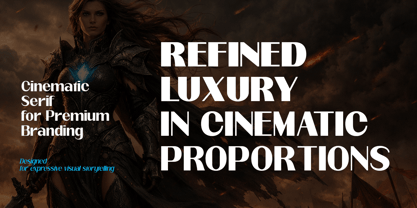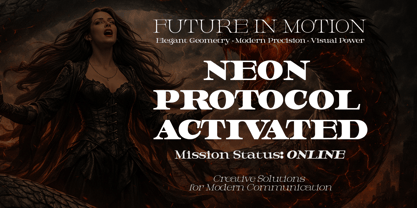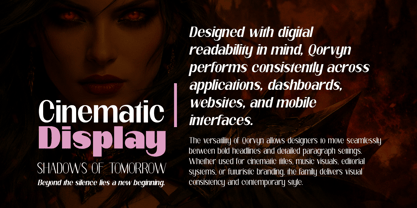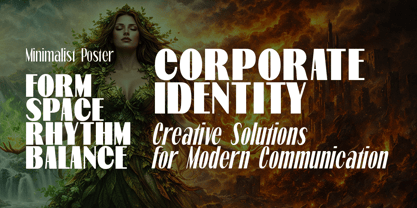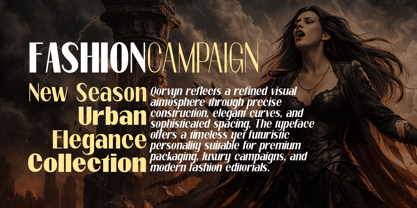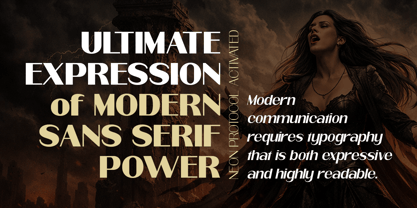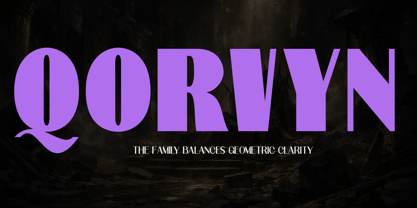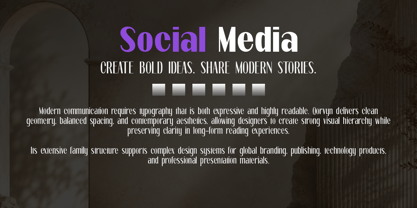
Qorvyn
The Qorvyn Font Family was designed by Roiyani Teungku and published by Groen Studio. Qorvyn contains 126 styles and family package options. More about this family
Qorvyn is a modern sans serif typeface designed with precision, versatility, and contemporary elegance. The family balances geometric clarity with strong readability, making it suitable for branding, editorial layouts, digital interfaces, cinematic titles, posters, technology products, luxury packaging, and futuristic visual identities. Each width and style variation offers a unique visual rhythm while maintaining the unified personality of the Qorvyn family.
The Qorvyn collection consists of 126 families, combining multiple widths, weights, and styles. The width categories include:
• Extra Condensed
• Condensed
• Semi Condensed
• Normal
• Semi Expanded
• Expanded
• Extra Expanded
Each category is available in upright and italic styles.